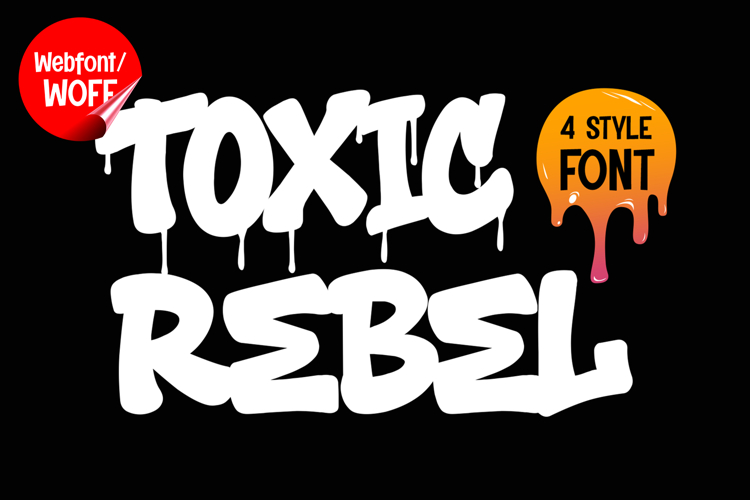
Toxic Rebel | Amazing Dripping Graffiti Webfont
Toxic Rebel is an amazing dripping graffiti webfont designed to bring raw street-art energy and rebellious urban aesthetics into modern website design. Inspired by spray-paint drips, underground graffiti culture, and freestyle street tagging, this font features bold letterforms and fluid dripping details that create a strong and eye-catching visual identity. It is an excellent choice for projects that aim to deliver authentic graffiti visuals with high visual impact and edgy street-style character.
Toxic Rebel includes a complete set of uppercase characters designed with dripping graffiti aesthetics. The letterforms feature energetic curves, aggressive strokes, and expressive drip effects that create a dynamic urban appearance inspired by real street murals and spray-paint artwork. These characteristics make it ideal for headlines, banners, hero sections, promotional graphics, and featured content where strong urban visuals are needed.
In addition to letters, the font includes numbers and punctuation, allowing flexible usage across various parts of a website. It works well for streetwear branding, gaming websites, music platforms, hip hop projects, esports graphics, and creative portfolios. Each character maintains a consistent dripping graffiti style, ensuring a cohesive and unified visual identity throughout the design.
With multilingual support, Toxic Rebel includes a wide range of accented characters, making it suitable for international websites and global audiences. This ensures content remains clear and visually consistent across different languages while preserving the expressive and rebellious graffiti aesthetic.
The amazing dripping graffiti style of Toxic Rebel makes it especially suitable for urban-themed websites, entertainment campaigns, youth-oriented branding, and creative digital projects. Its flowing drip effects and aggressive structure create a powerful street-art atmosphere that helps websites stand out in visually competitive environments. The graffiti-inspired forms add movement, intensity, and authentic underground character while maintaining a modern display appearance.
Despite its decorative and highly expressive appearance, Toxic Rebel is designed with readability in mind. The spacing and proportions are carefully balanced to ensure clarity, particularly in display sizes. This allows designers to use the font effectively for impactful headings and short content without sacrificing usability.
Toxic Rebel is a webfont that combines dripping graffiti aesthetics with modern digital performance. Its bold forms, expressive drip details, and urban character create a distinctive typographic presence that enhances website design. For projects that require a strong, rebellious, and visually engaging graffiti font, Toxic Rebel offers a versatile and powerful solution.